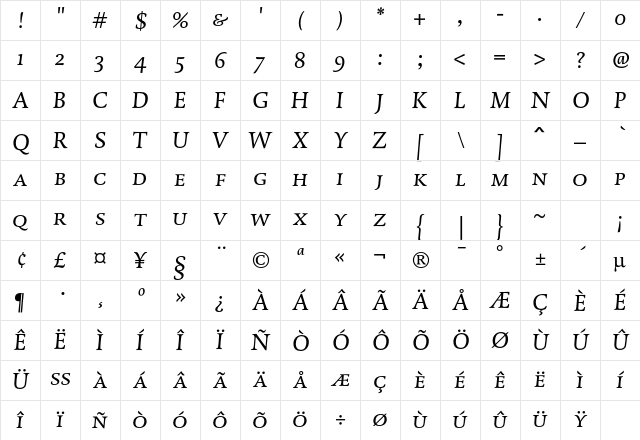
DTLDorianTCaps Italic
Design Context for DTLDorianTCaps
DTLDorianTCaps is a composed and adaptable typeface that performs quietly and consistently across a wide range of design contexts. The slanted form adds forward momentum and visual energy.
Pro Tip: Use DTLDorianTCaps for emphasis, pull quotes, and subheadings where its slanted energy can add rhythm to the layout.